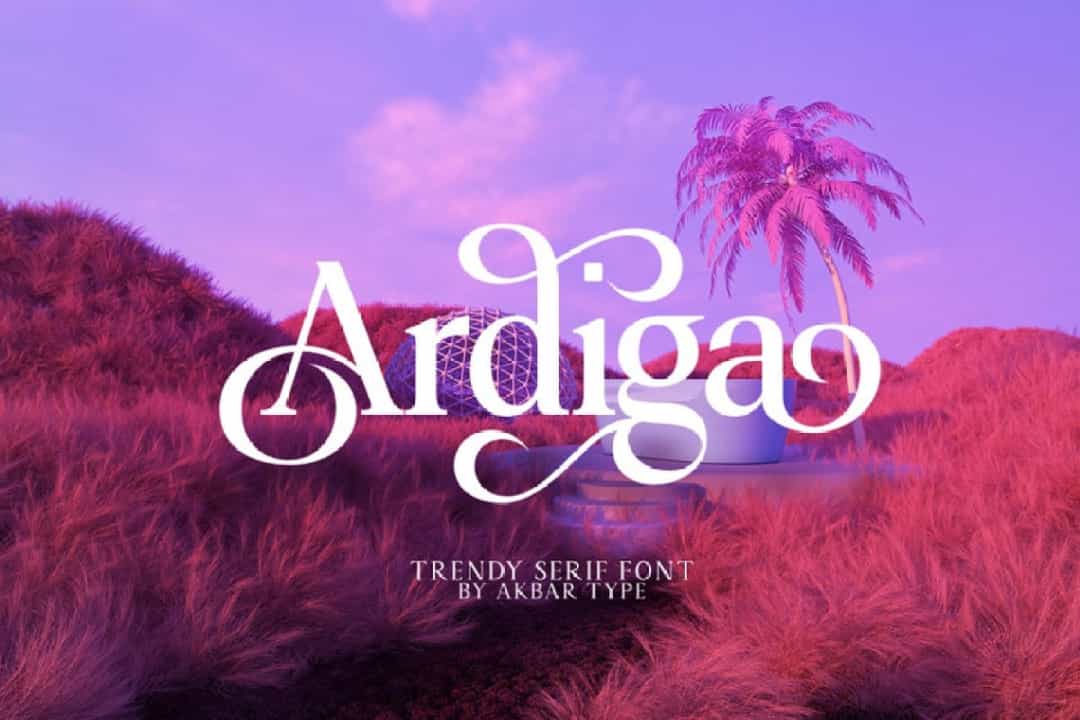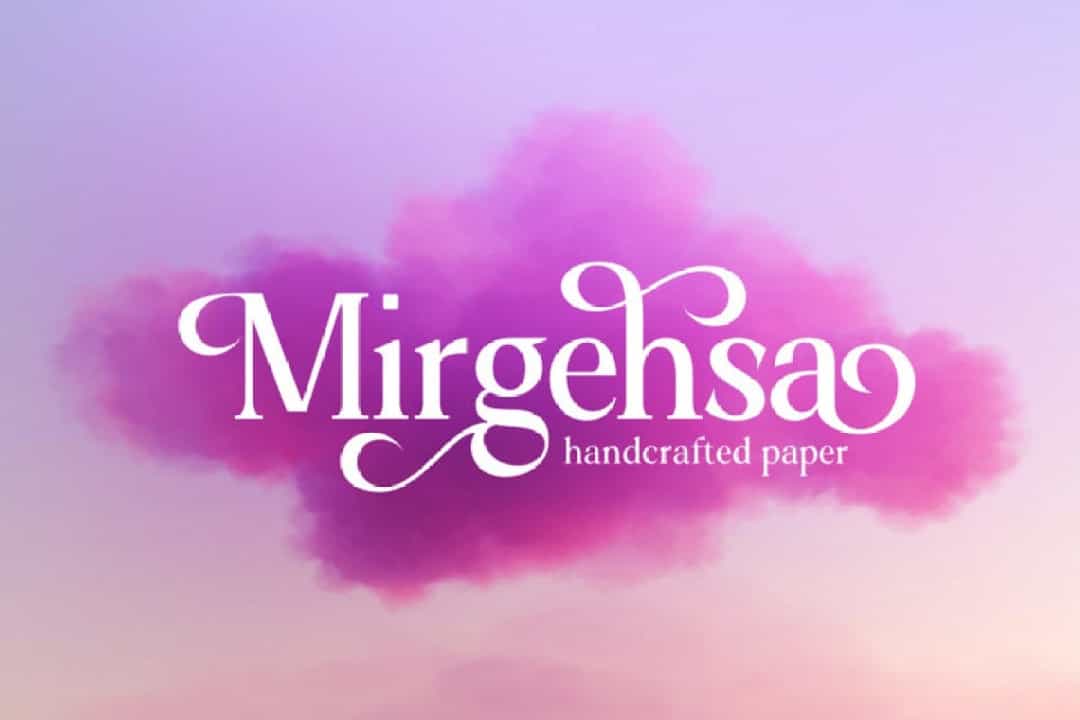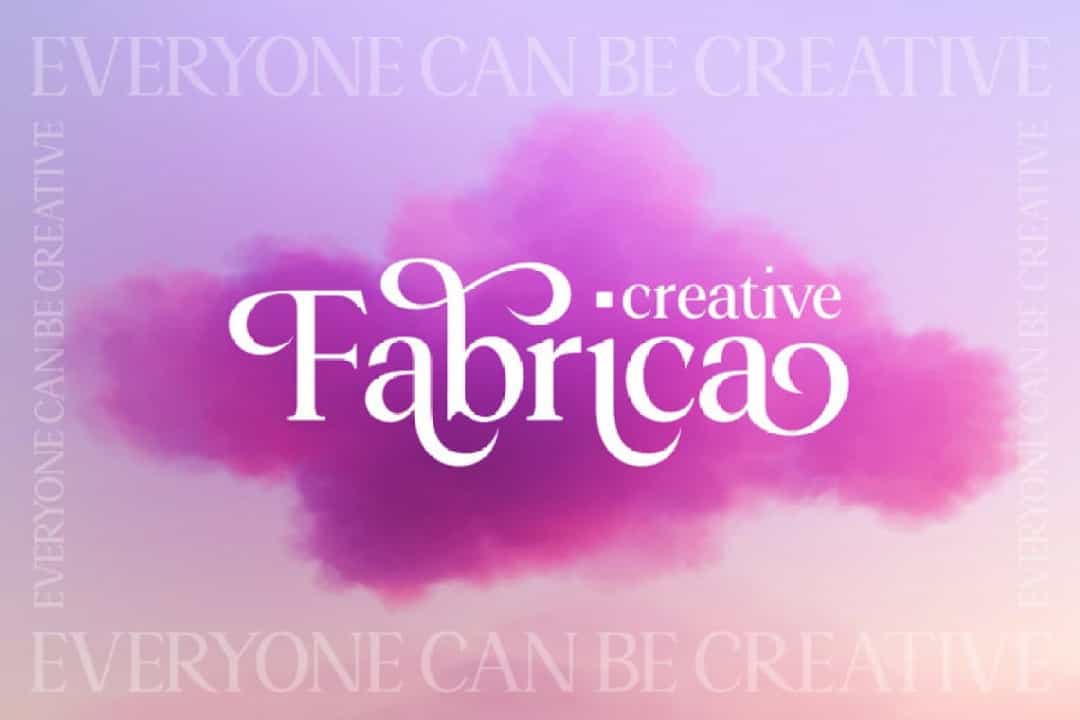
Ardiga is an elegant and distinctive serif typeface featuring multiple letters and swashes that give logos an eye-catching accent. Ideal for wordmarks monograms pull quotes! PUA encoded for easy accessing all characters and washes!